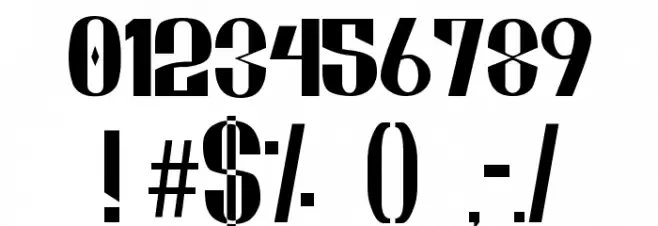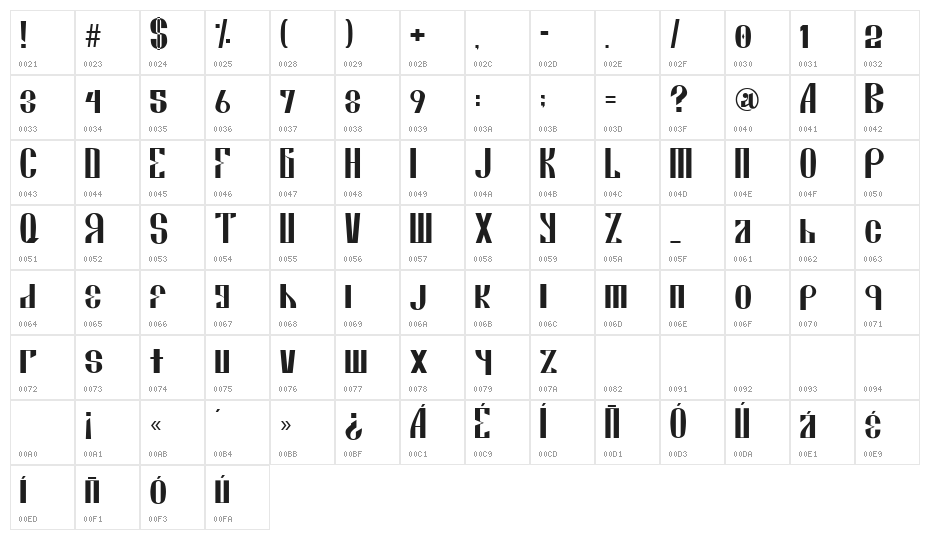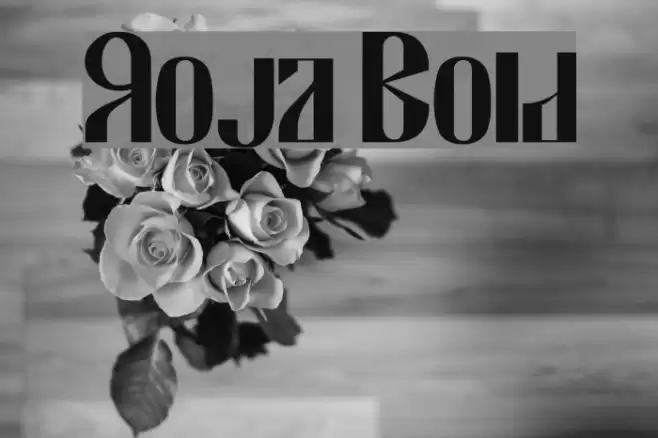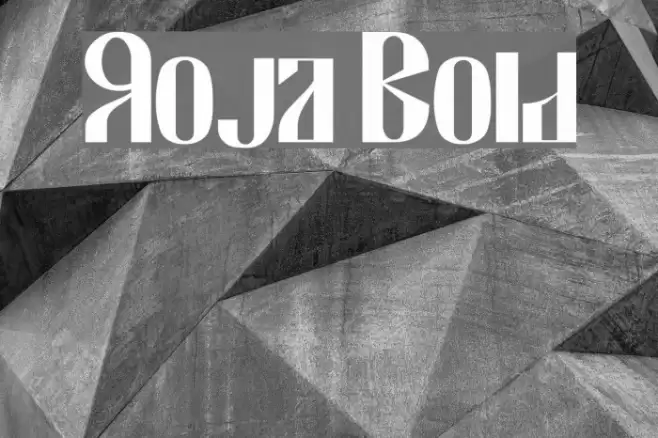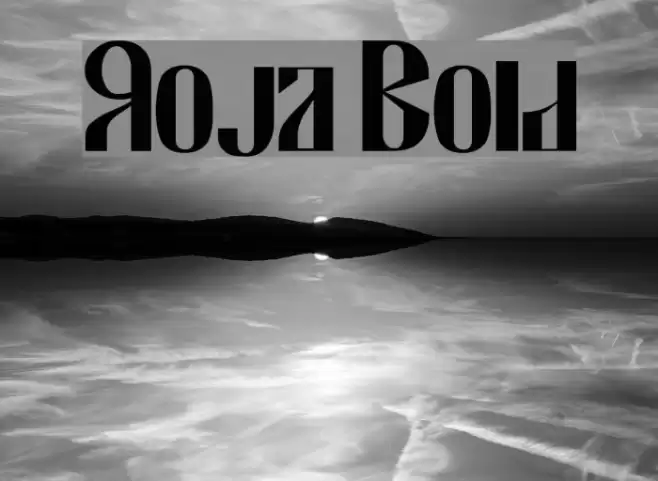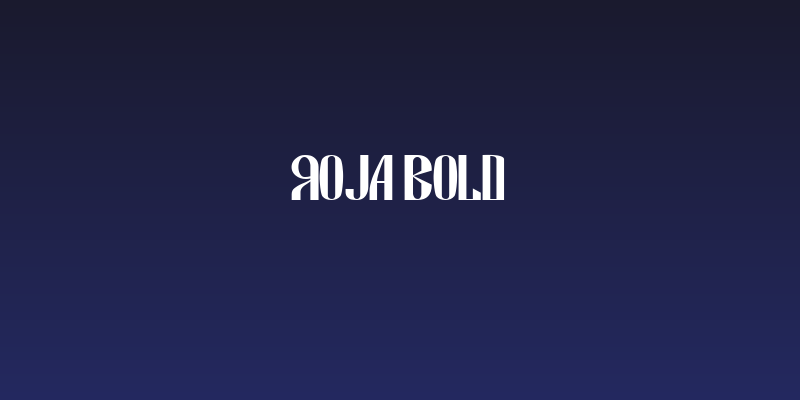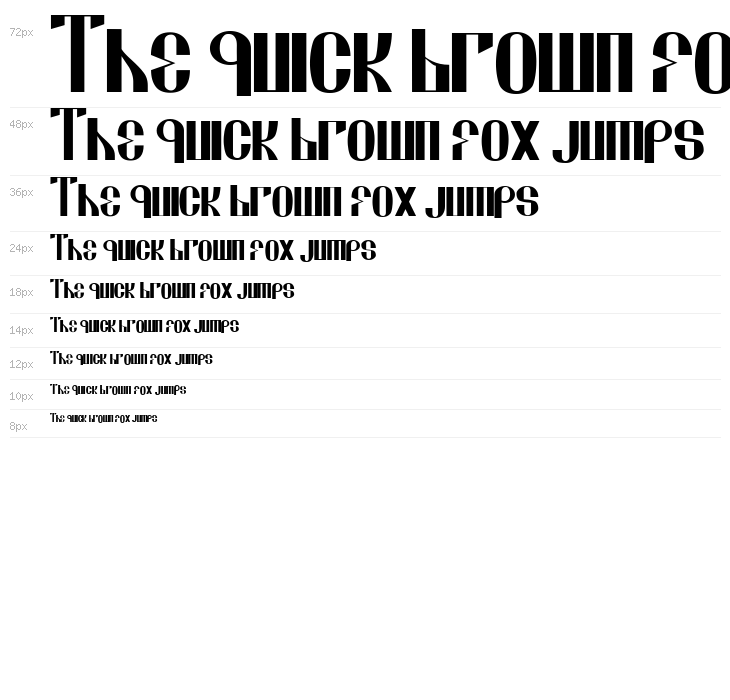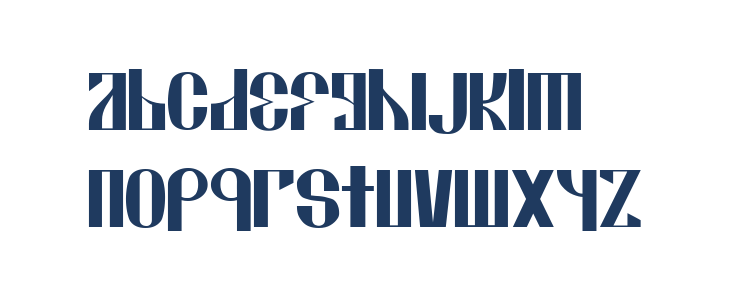
Roja Bold Font
Roja Bold Description
This font features a bold and striking design with a high contrast between thick and thin strokes, creating a dramatic and eye-catching appearance. The characters are uniquely styled with geometric elements, giving them a modern and artistic flair. The uppercase and lowercase letters maintain a consistent width, contributing to a uniform and cohesive look. The numbers and special characters are equally bold, ensuring they stand out in any design. This font is ideal for making a strong visual impact, whether used in headlines, posters, or branding materials.
| Proposed Projects | Ideal for headlines, posters, branding, and any project requiring a strong visual impact. |